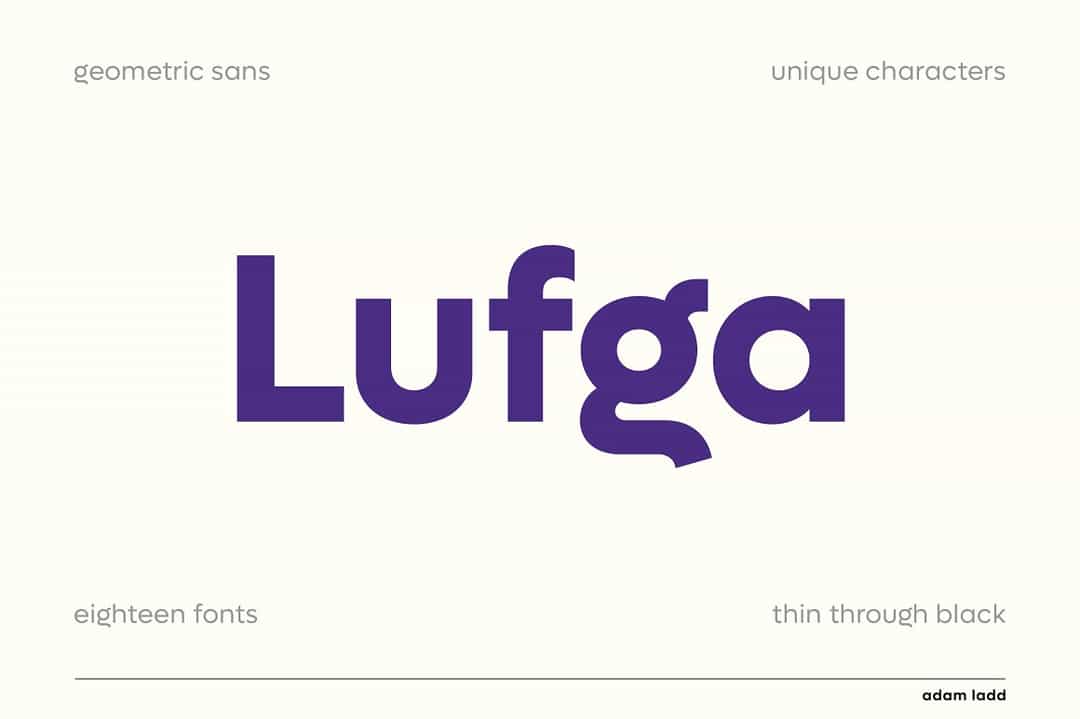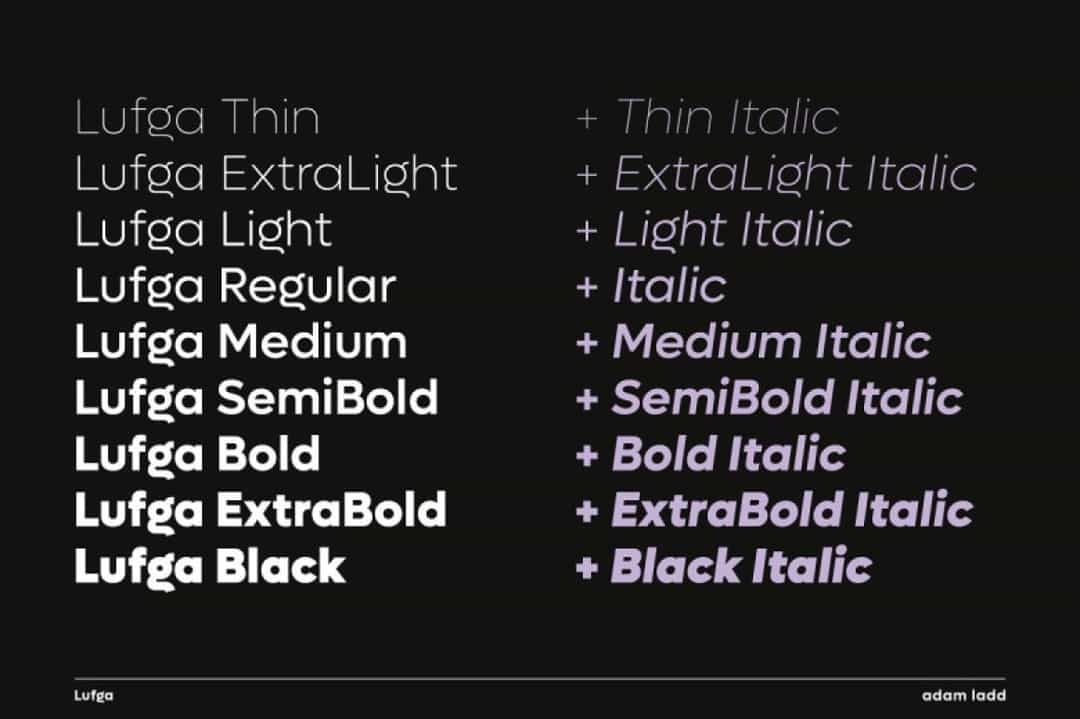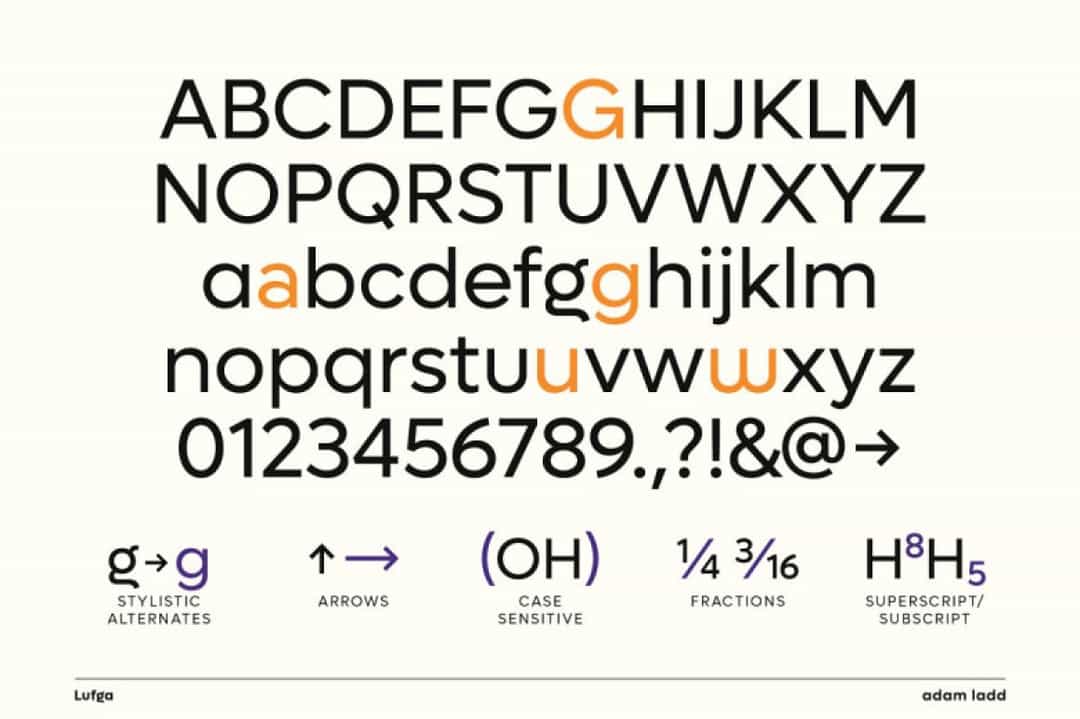
Lufga Sans Font is an organic sans serif font family featuring distinctive characters to set it apart from similar font families. Sleek yet refined, this typeface boasts modernity while still including retro hues. Most prominent is that lowercase letters g and U are easily recognized for branding purposes while there are also stylistic variations which allow users to achieve individual looks when necessary.